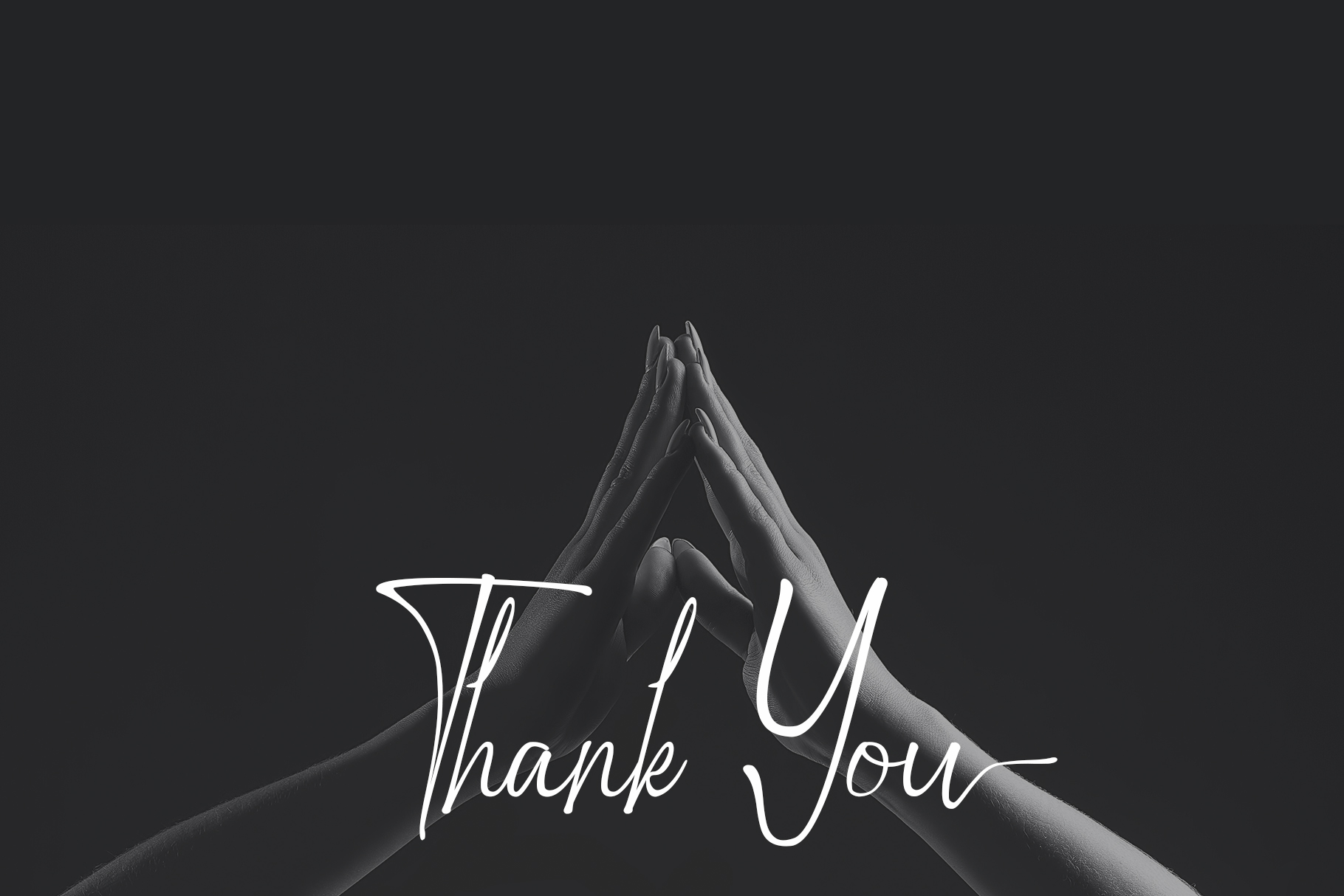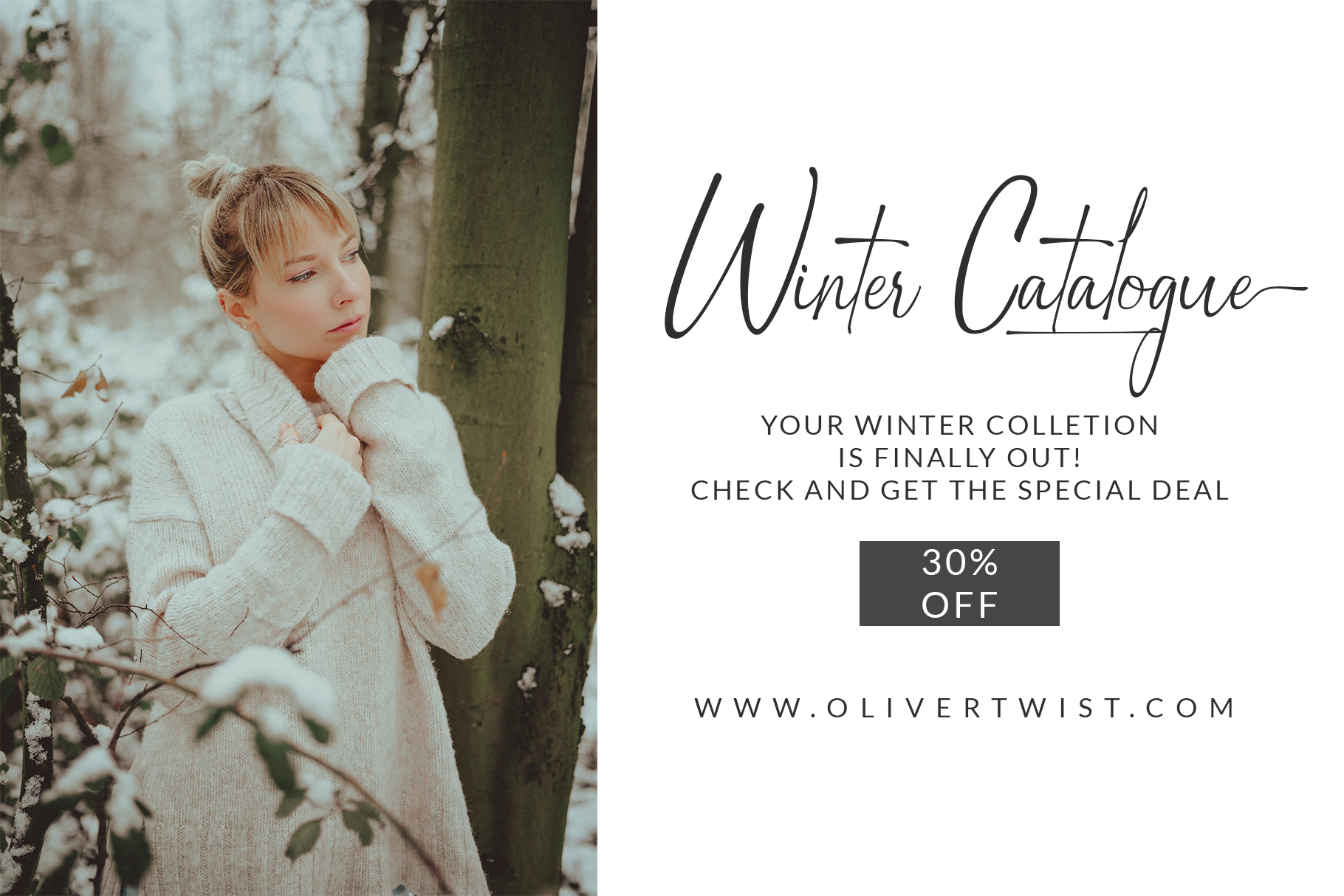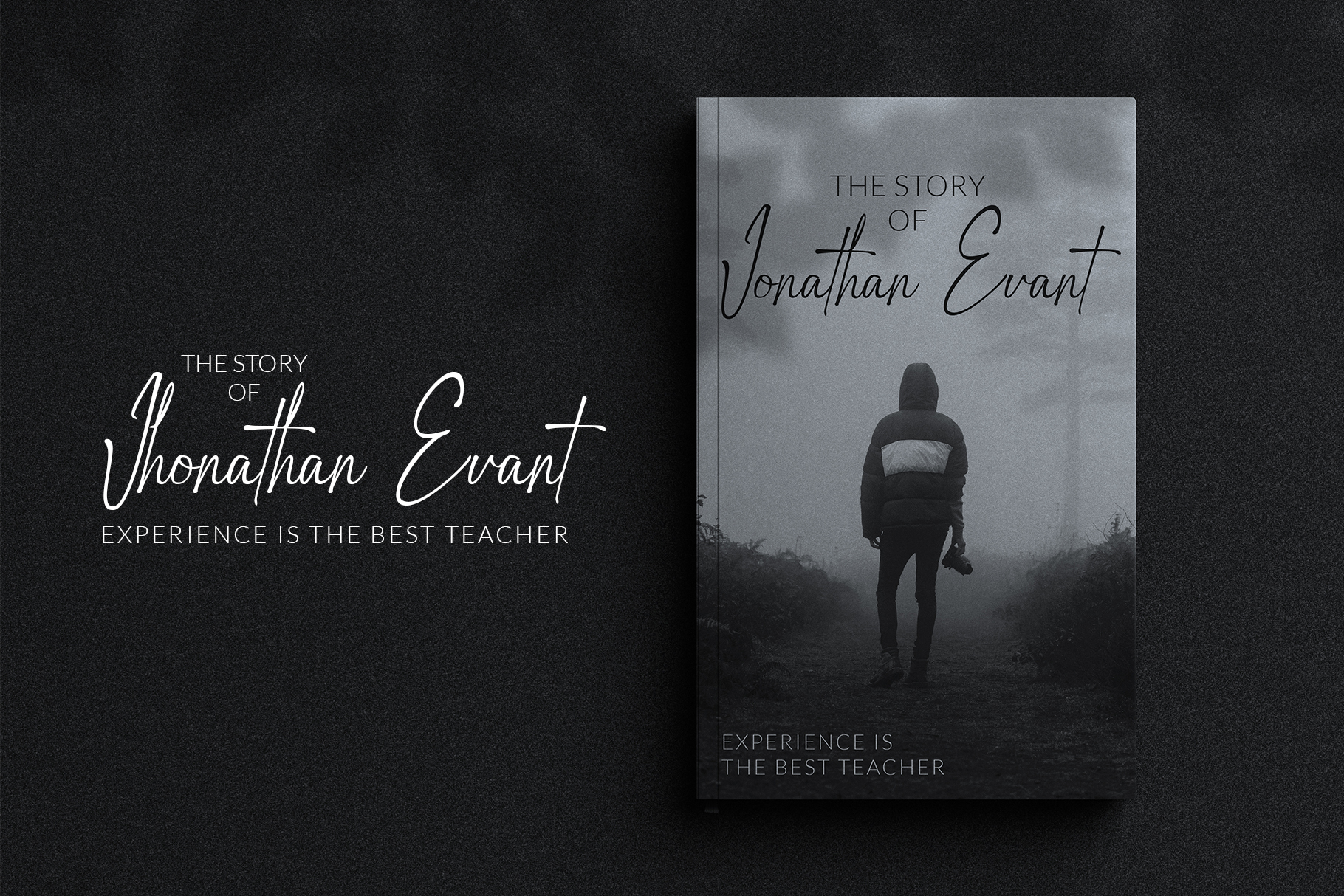
Zattany Font
Zattany Font is a stylish Signature font with contemporary and sophisticated accents. It is perfect for logo/branding projects, large header text and product packaging.